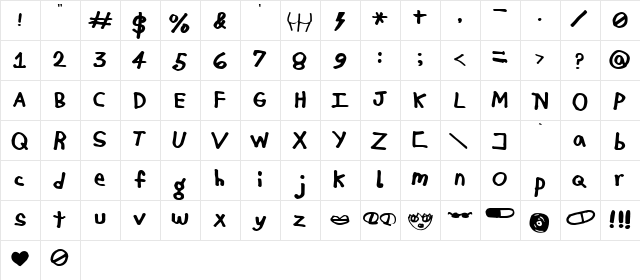
Puberty Strike Regular Font Preview
Puberty Strike Regular
Design Context for Puberty Strike Typeface
Puberty Strike is a composed and adaptable typeface that performs quietly and consistently across a wide range of design contexts.